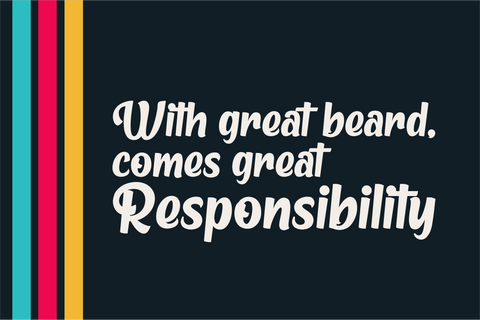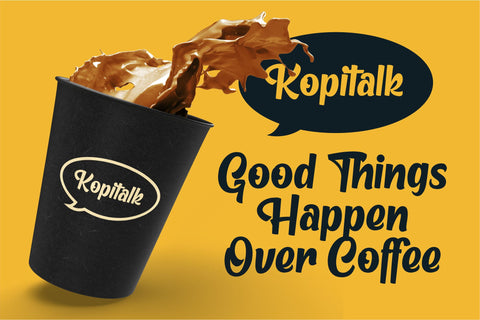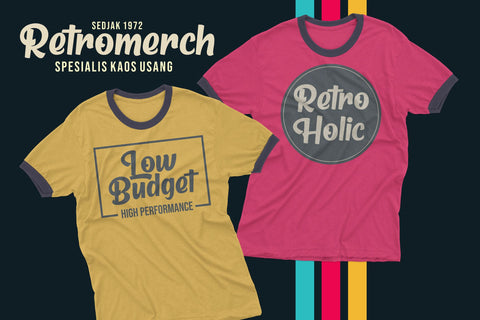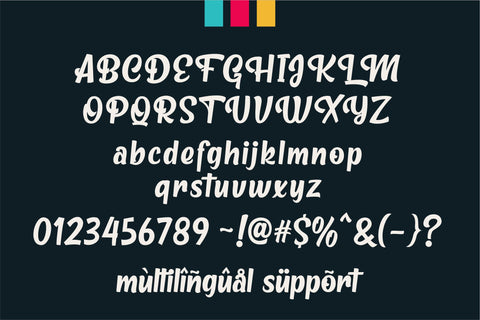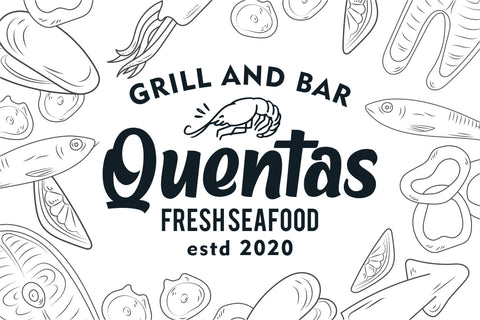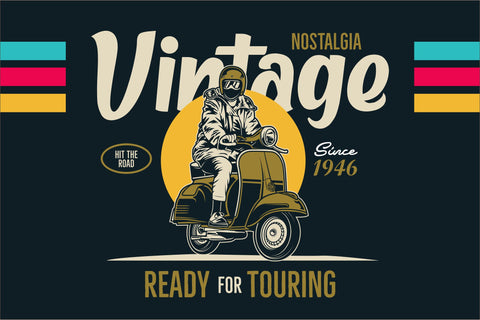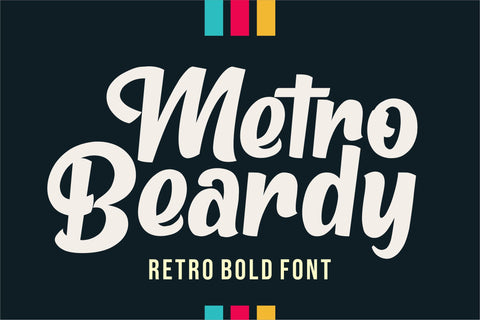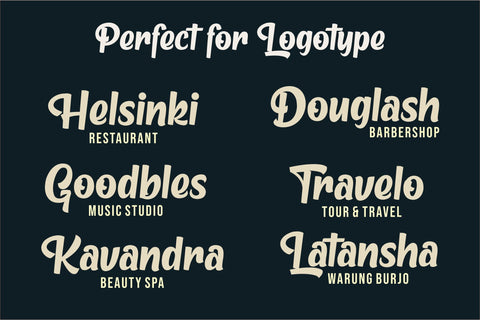
Metro Beardy - Retro Bold Font
Metro Beardy is a retro bold font that comes from hand scratches to get natural writing. With the main style of the hand-lettering display font. Metro Beardy is very suitable for use in various media such as; packaging, logos, labels, posters, shirt designs, wisdom quotes, bulletins, typography, and many other media, especially with retro or vintage looks.
- Support Multilanguage